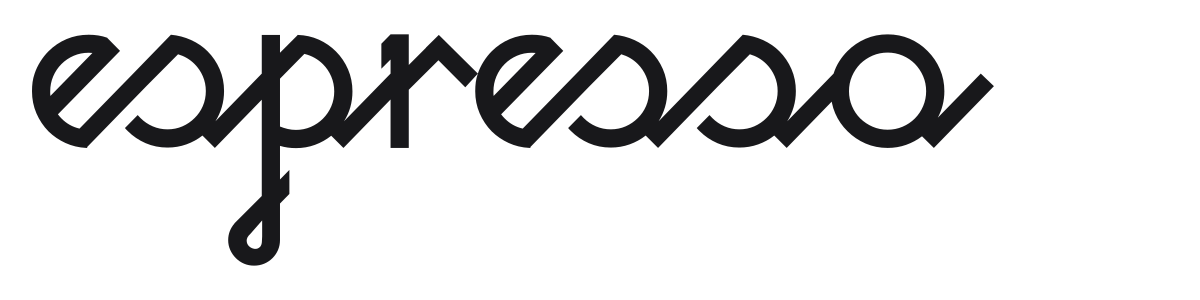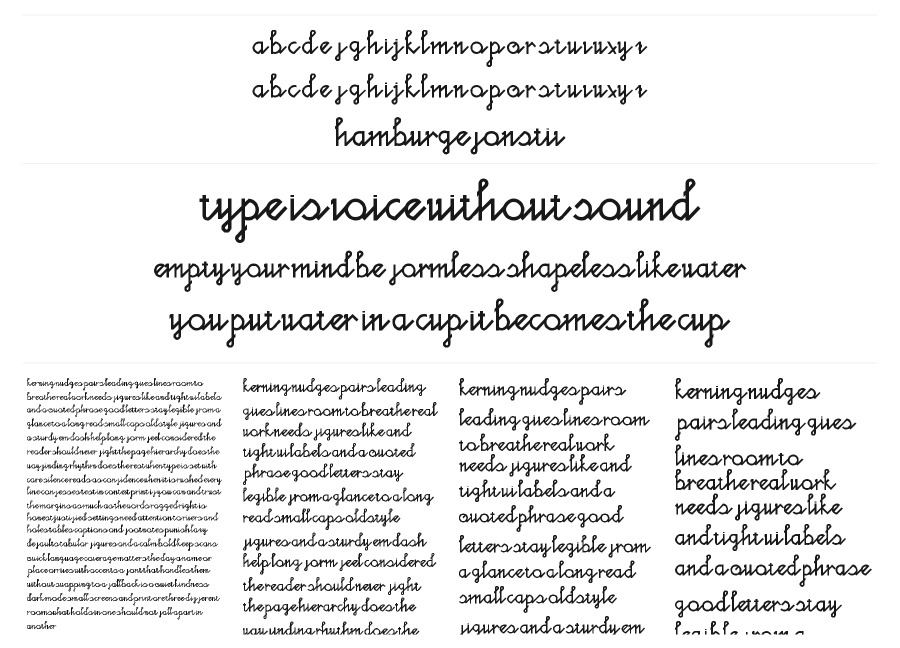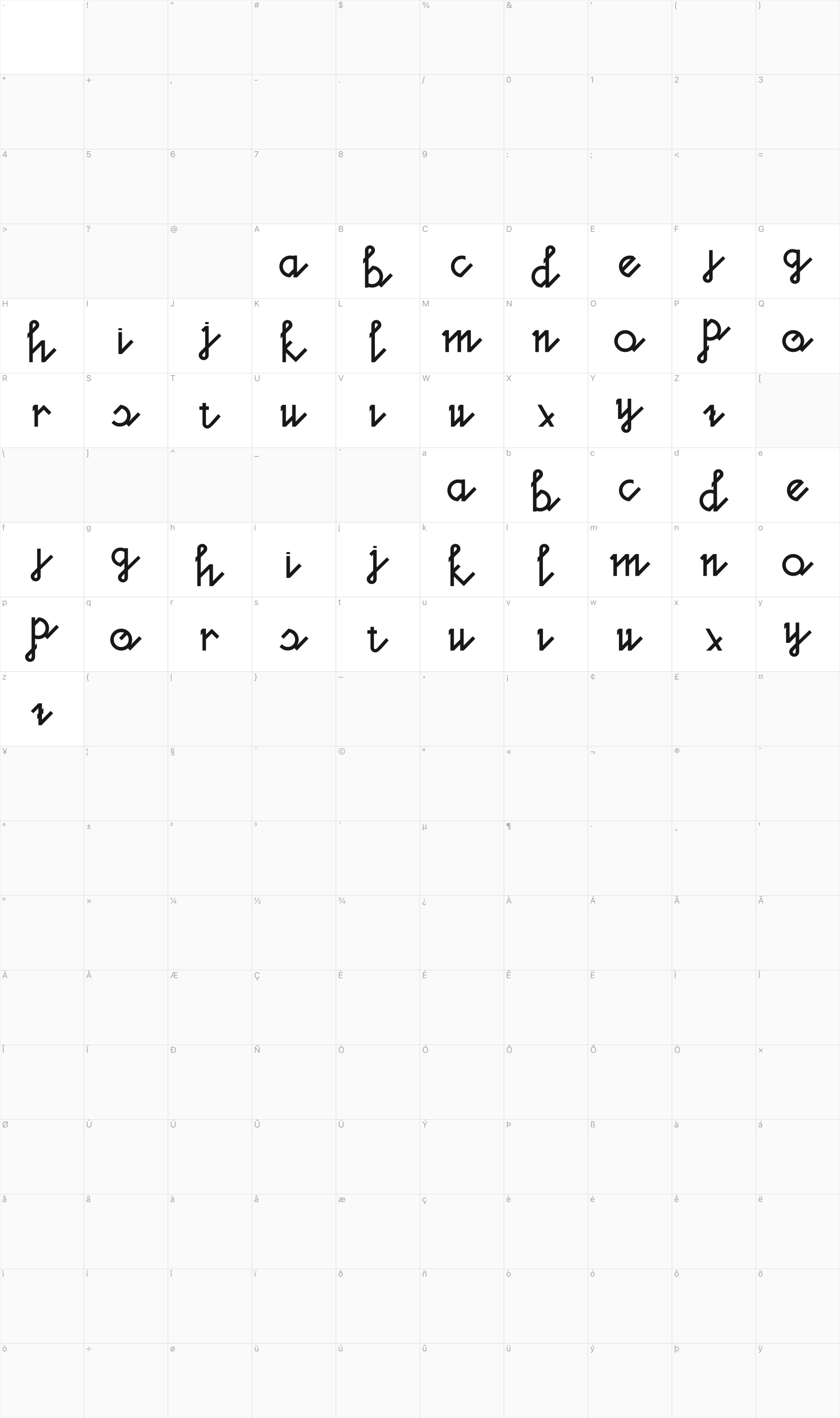
Espresso
Espresso is a flowing connected script built on looping, monoweight strokes with distinctive teardrop curl terminals. The wide, relaxed proportions give it a casual warmth that sits somewhere between handwritten signage and retro lettering. Strong at large sizes for cafe menus, product packaging, and informal brand identities.